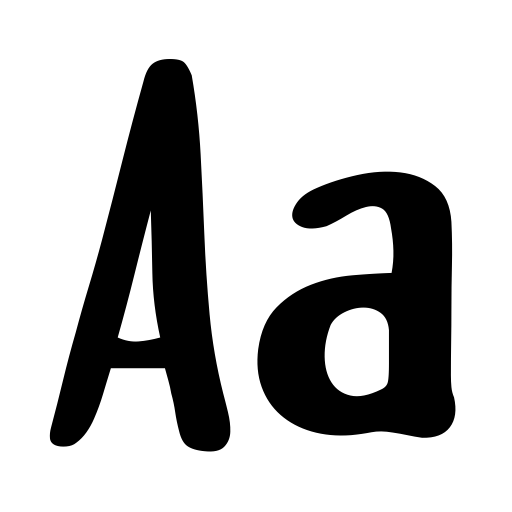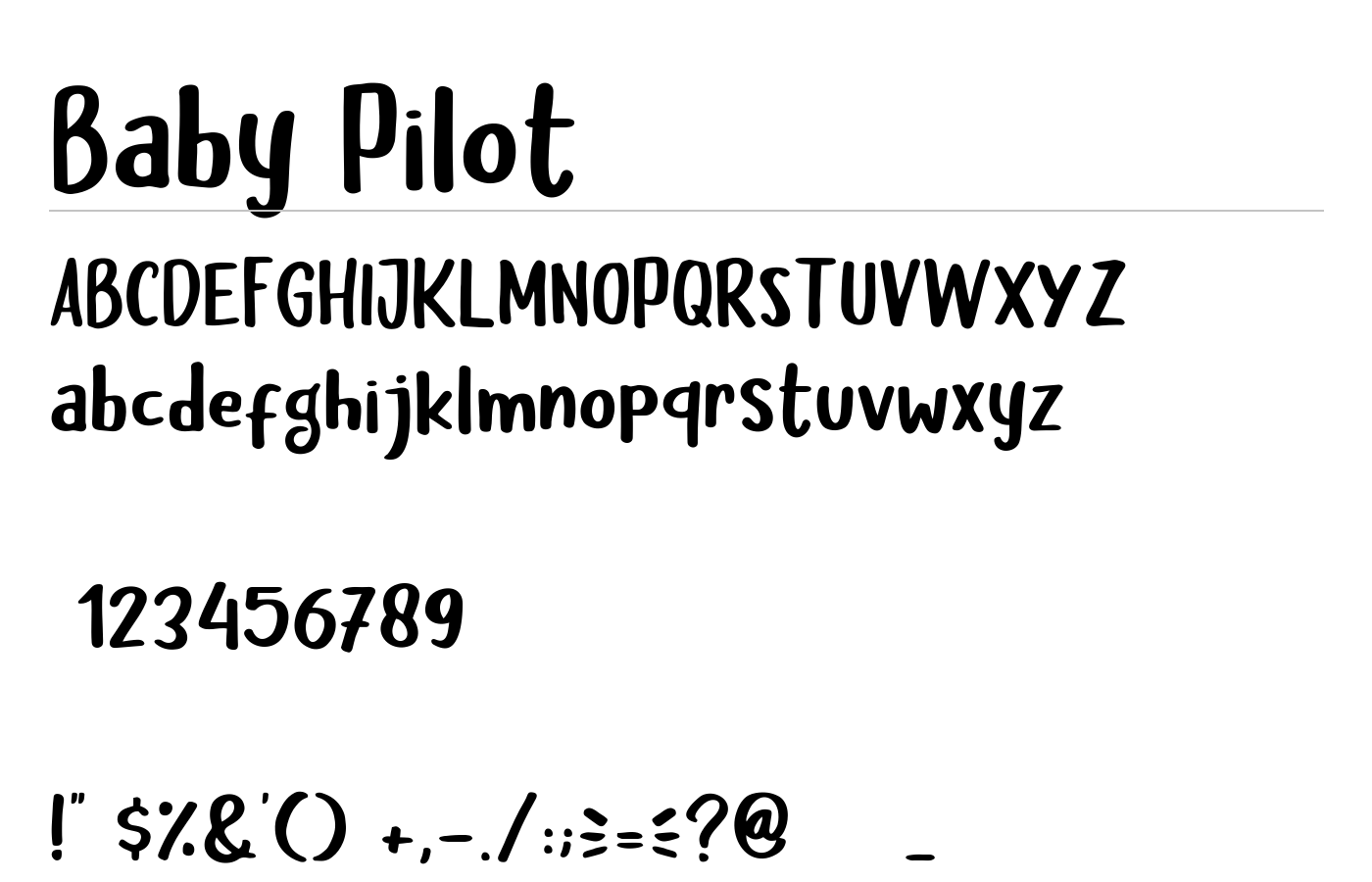
Baby Pilot is a playful, hand-drawn sans serif font with a friendly and casual vibe. Its rounded, slightly irregular letterforms and moderate weight make it perfect for kid-focused designs, informal branding, and creative projects needing a warm, approachable feel. This font works well in logos, posters, and packaging where a charming, personal touch is desired.
Baby Pilot Font
About Baby Pilot Font
| Font family | Baby Pilot Font |